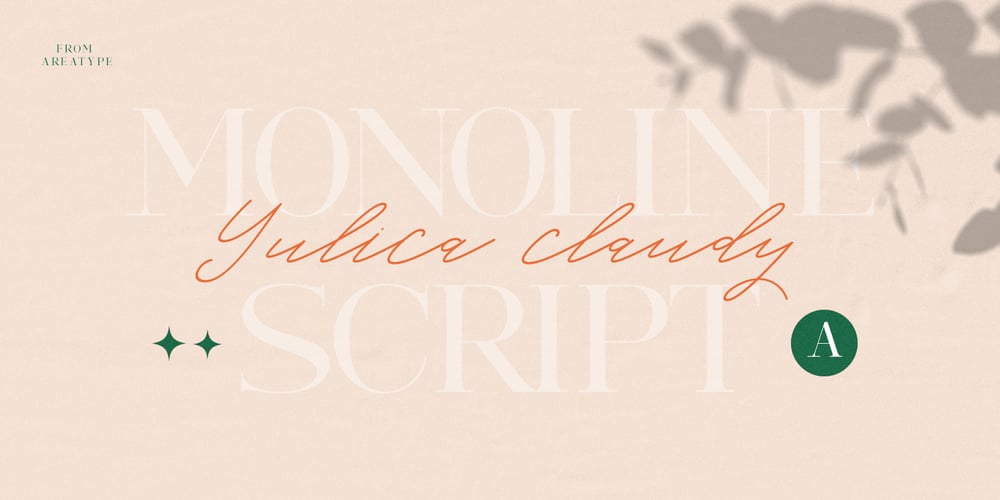
Yulica Claudy Font Family was designed by Ambia and published by Areatype. Yulica Claudy contains 1 styles and family package options. Yulica claudy is a lovely, modern calligraphic script. It features dynamic and pretty swashes and can be used for many purpose, such as titles, signatures, logos, wedding invitations, letterhead, signage, labels, newsletters, posters, badges, etc.Yulica claudy features OpenType, including the initial and terminal letters, ligatures and International support for most Western languages included.Yulica claudy PUA encoded with Unicode, which allows full access to all the extra characters without having to design special software. Mac users can use Font Book, and Windows users can use the Character Map to view and copy one additional character to paste into your text editor / favorite applications.Enjoy using